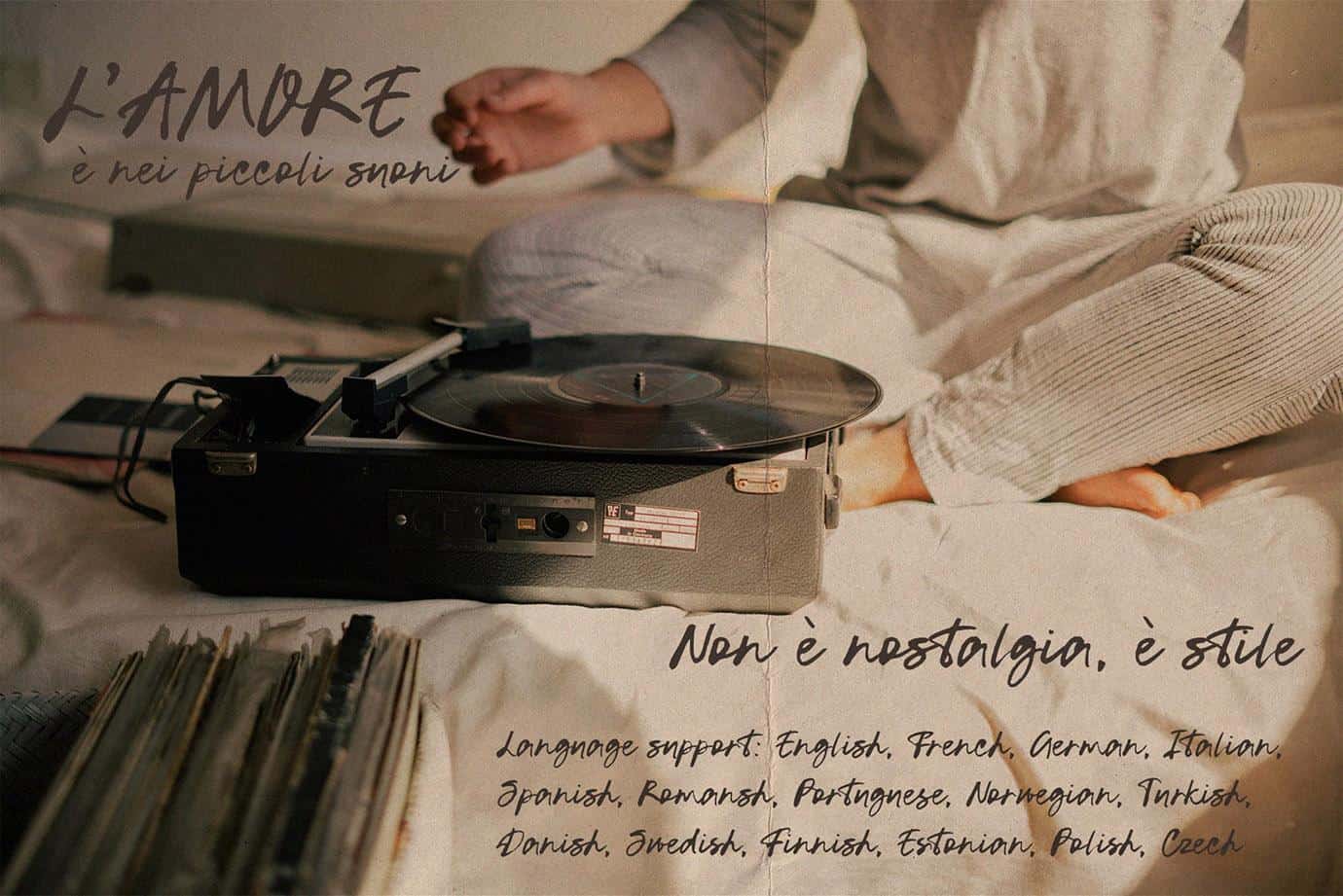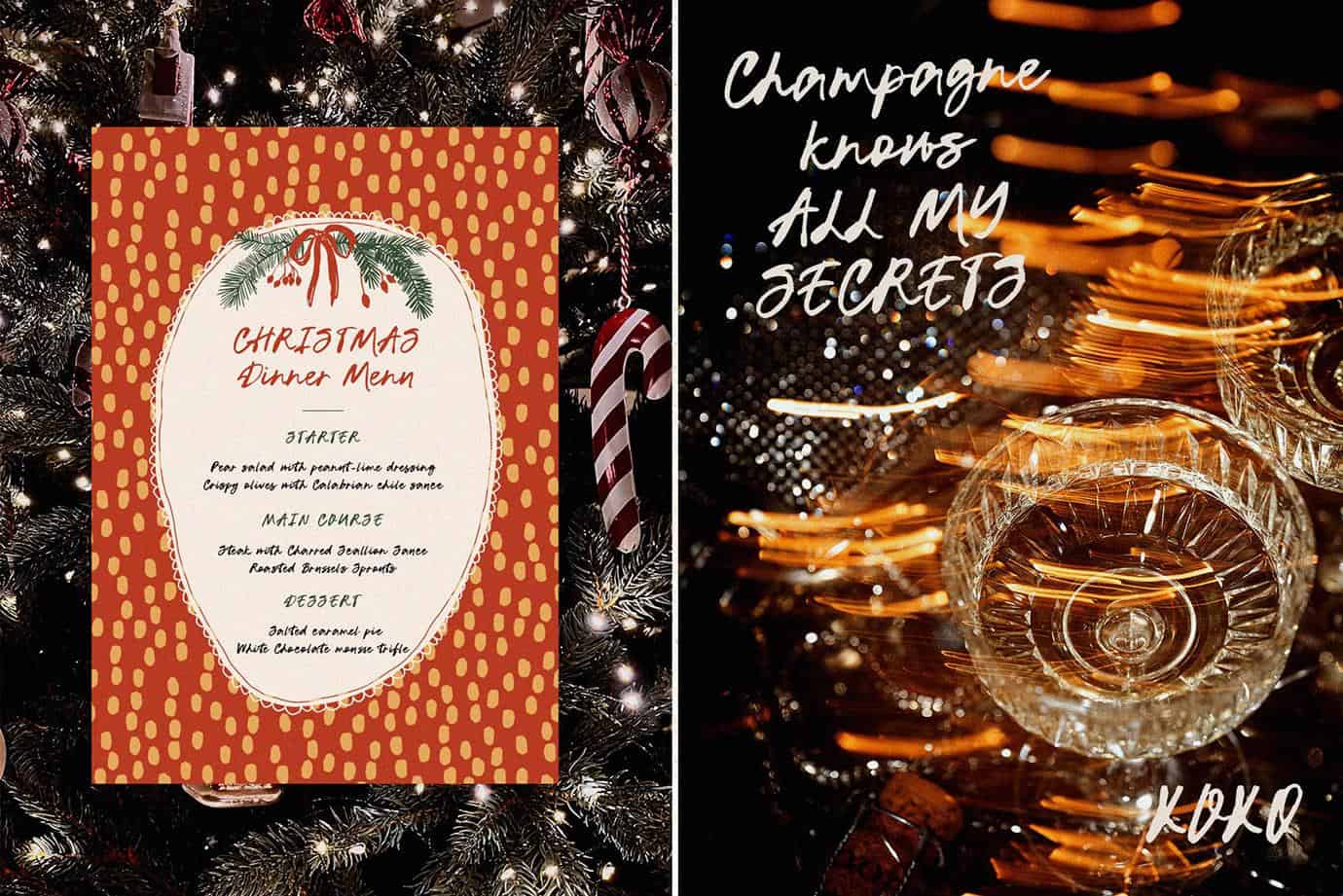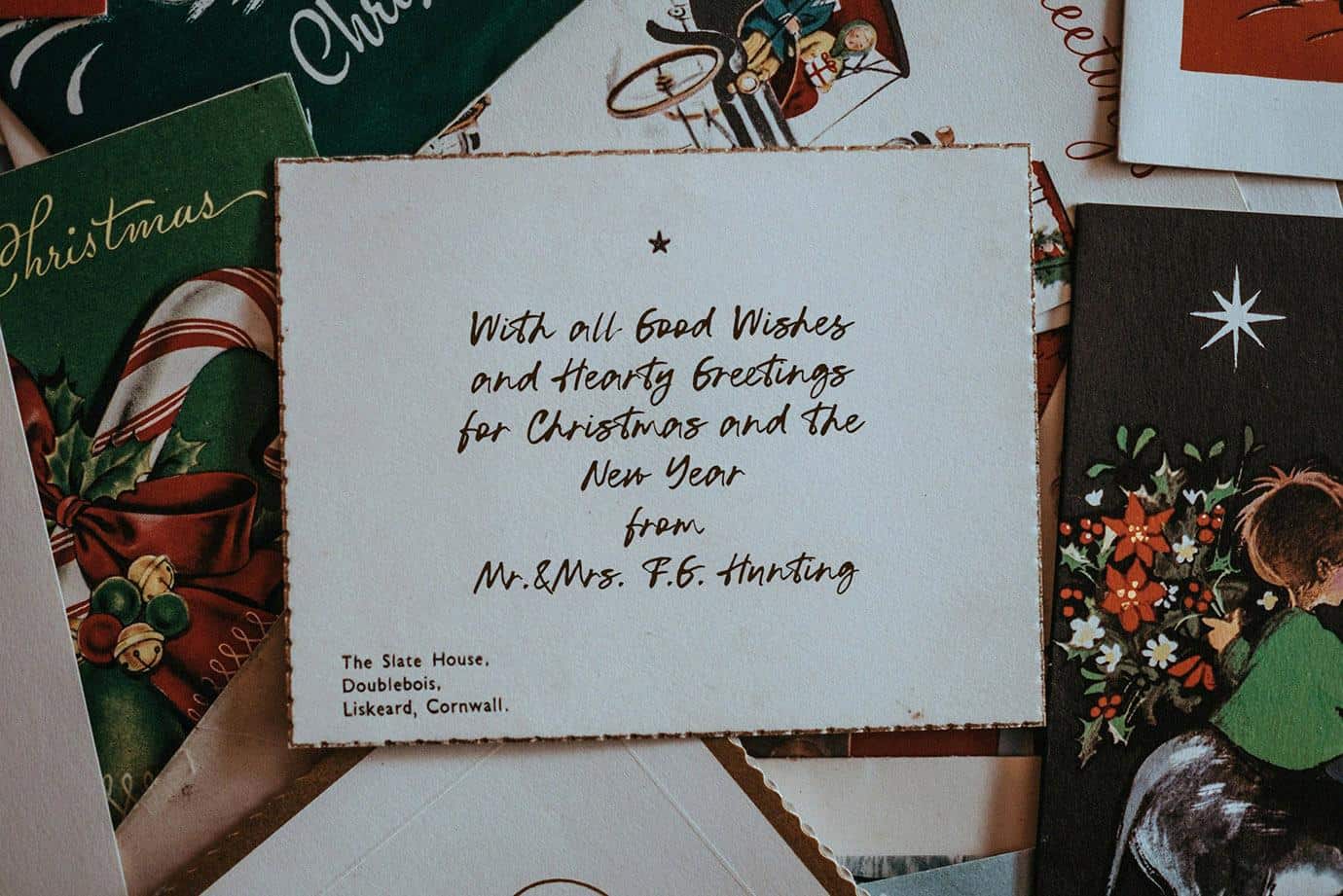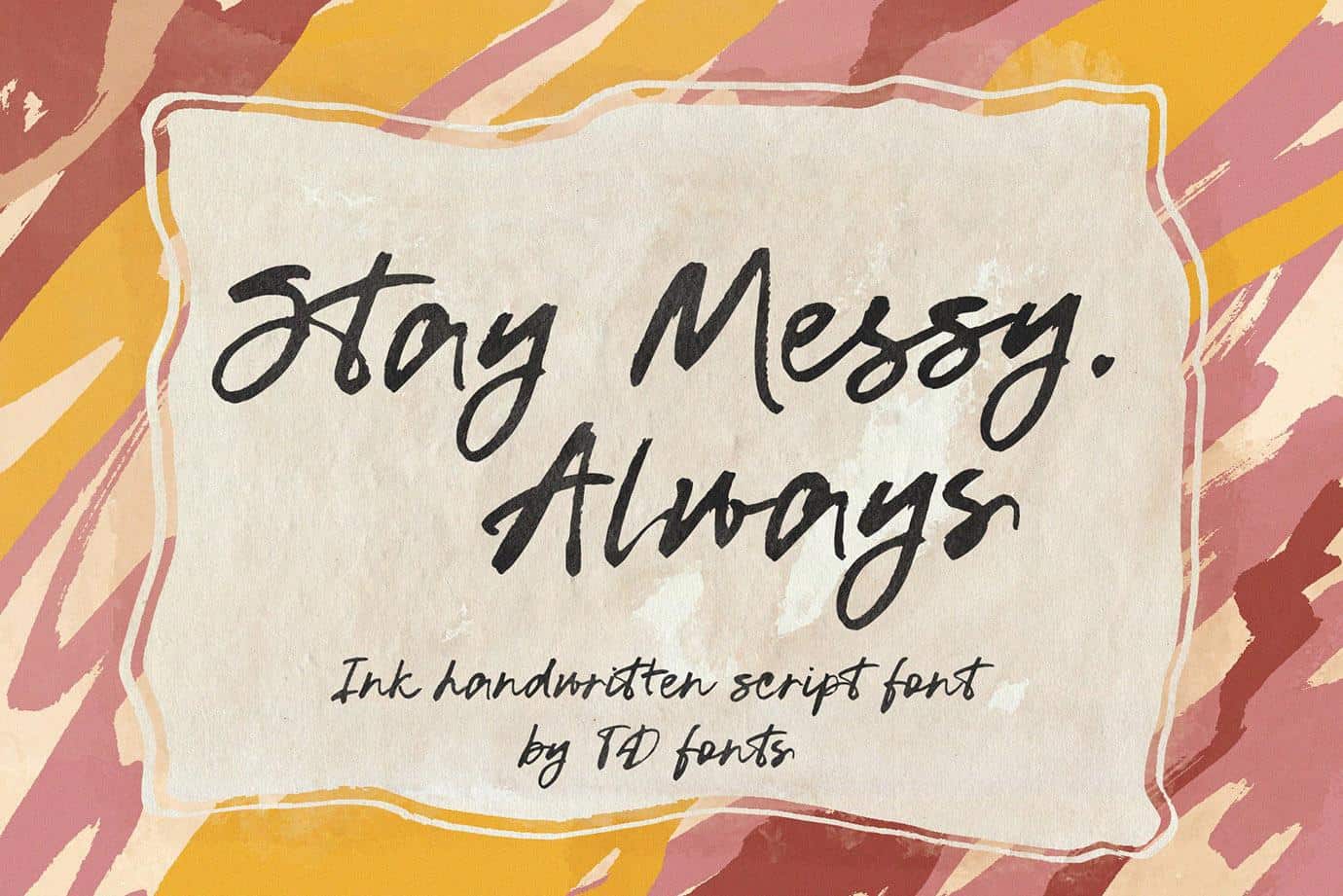
Stay Messy – Ink Handwritten Script Font
Stay Messy. Always is a fast, expressive handwritten font created with real ink and a dip pen. It captures the energy of quick notes on paper — bold, spontaneous, and full of life. The strokes carry a slightly rough, messy texture that gives every letter a natural, handcrafted feel.
It’s a font that doesn’t chase perfection — it celebrates character.
With a hint of retro charm and a modern edge, Stay Messy. Always adds warmth, motion, and human touch to any project.
Perfect for designers who love fonts with personality, it works beautifully for:
– Branding and logo design
– Packaging and product labels
– Websites and social media graphics
– Posters, prints, and editorial layouts
– Wedding stationery and event invitations
– Christmas cards & festive design
The font includes alternates and ligatures to create an organic handwritten flow and pairs effortlessly with minimalist sans-serif typefaces.
If your design calls for something authentic, emotional, and unapologetically human — Stay Messy. Always is made for you.